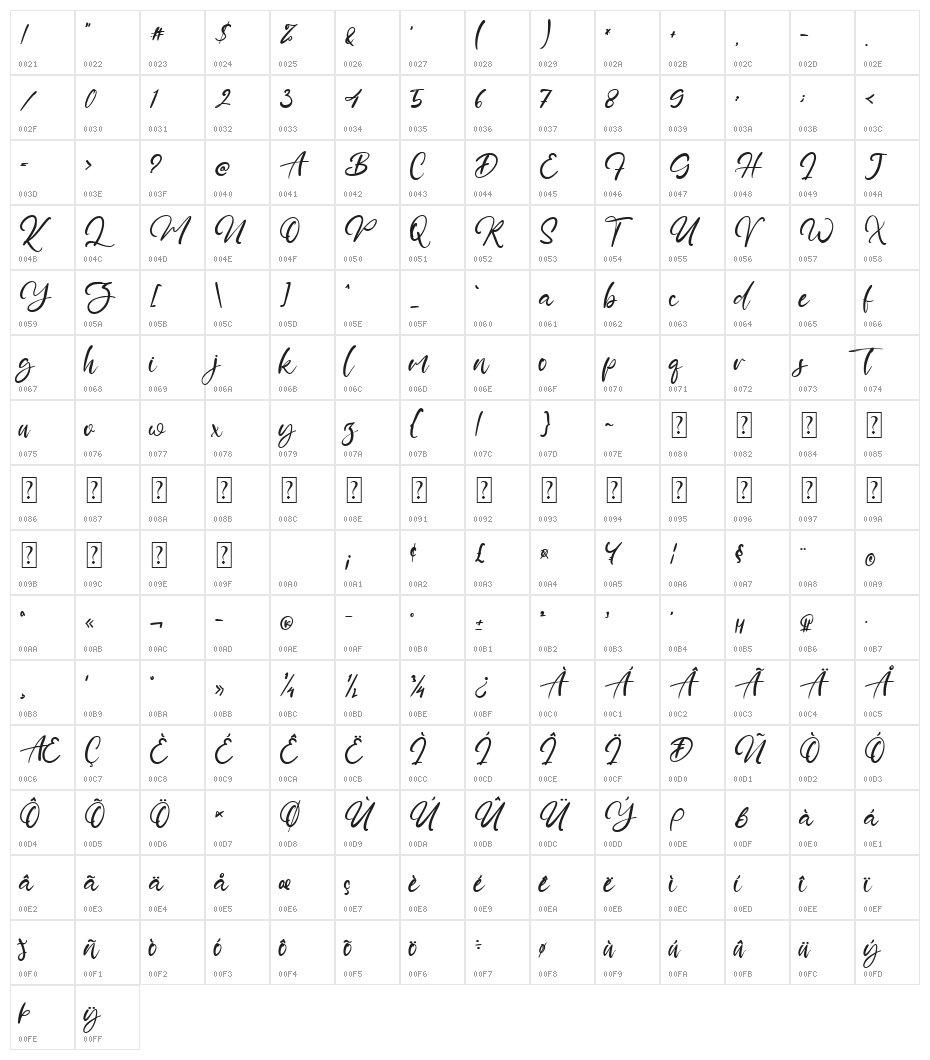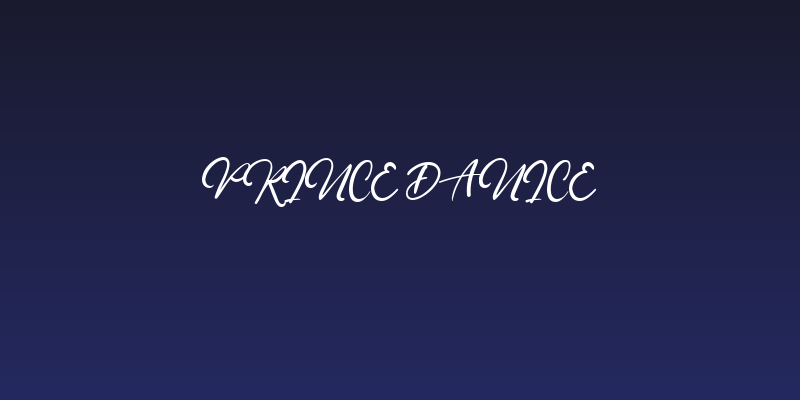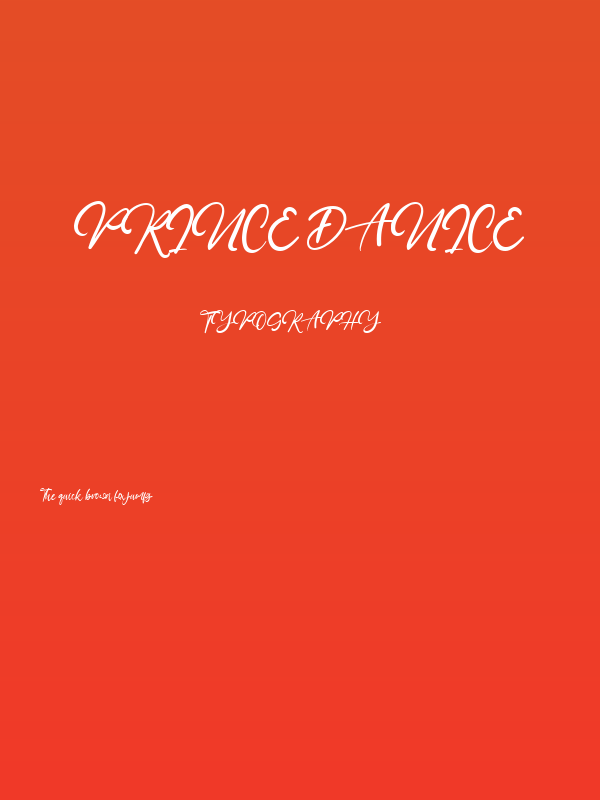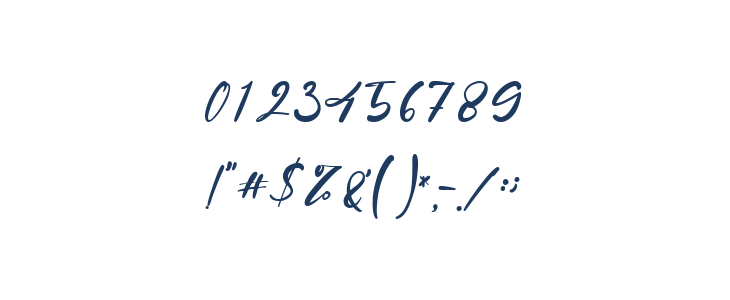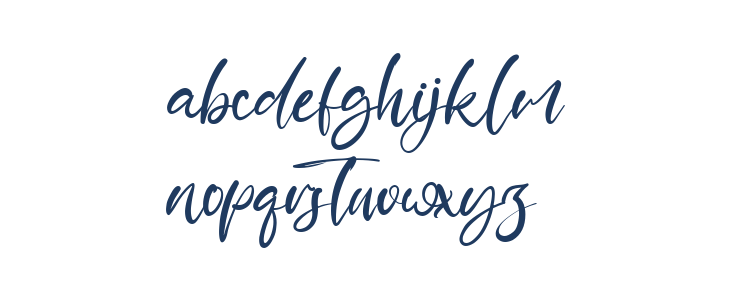
Prince Danice Font
Prince Danice Description
This font features an elegant and flowing script style, characterized by its smooth, cursive strokes and graceful curves. The uppercase letters are slightly more elaborate, with sweeping lines that create a sense of movement and sophistication. The lowercase letters maintain a consistent flow, enhancing readability while preserving the artistic flair. The numerals and special characters are designed to complement the overall aesthetic, ensuring a cohesive look across all text elements. This font is ideal for projects that require a touch of elegance and refinement.
| Overall Style | Elegant, Decorative |
| Proposed Projects | Ideal for wedding invitations, elegant branding, greeting cards, and upscale packaging. |